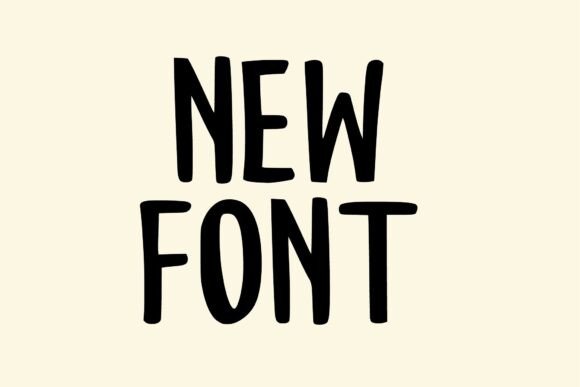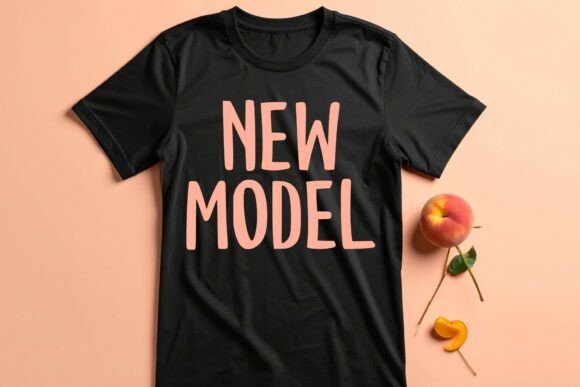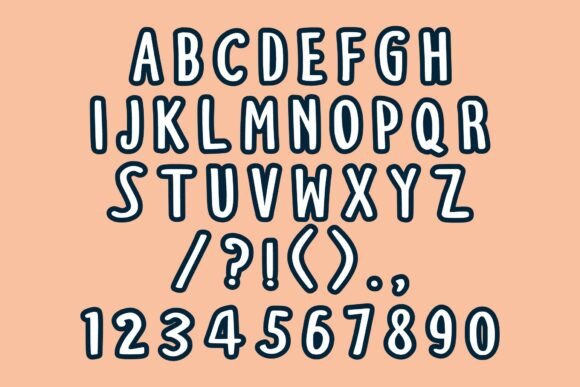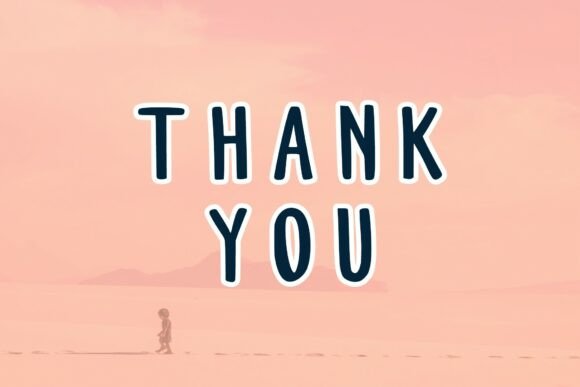
Hello Doodle Font: Add a Playful Touch to Your Designs
Are you looking for a font that can add a sweet and playful touch to your designs? Look no further than the Hello Doodle font! This charming handwritten font features bold, rounded letters and a fun doodle-inspired look that’s perfect for creating eye-catching designs. In this article, we’ll explore the features and benefits of the Hello Doodle font, and show you how to use it to take your designs to the next level.
What is Hello Doodle Font?
Hello Doodle is a display font that’s designed to bring a cheerful and friendly vibe to your designs. Its bold, rounded letters and fun doodle-inspired look make it perfect for creating attention-grabbing headlines, titles, and quotes. The font’s playful style is reminiscent of hand-drawn doodles, making it ideal for designs that require a personal and whimsical touch.
Key Features of Hello Doodle Font
- Handwritten style: Hello Doodle font features a charming handwritten style that’s perfect for creating unique and personalized designs.
- Bold and rounded letters: The font’s bold and rounded letters make it easy to read and add a playful touch to your designs.
- Doodle-inspired look: The font’s doodle-inspired look adds a fun and whimsical touch to your designs, making them stand out from the crowd.
- Multipurpose: Hello Doodle font is versatile and can be used for a wide range of design projects, from quotes and t-shirts to invitations and social media graphics.
Use Cases for Hello Doodle Font
Hello Doodle font is perfect for a variety of design projects, including:
- Quotes and posters: Add a playful touch to your quotes and posters with Hello Doodle font.
- T-shirts and mugs: Create eye-catching apparel and accessories with this fun and playful font.
- Stickers and children’s projects: Hello Doodle font is perfect for creating fun and colorful stickers and children’s projects.
- Classroom materials: Add a cheerful touch to your classroom materials, such as worksheets and presentations.
- Branding and invitations: Use Hello Doodle font to create unique and personalized branding and invitations.
- Social media graphics: Add a playful touch to your social media graphics and stand out from the crowd.
Benefits of Using Hello Doodle Font
Using Hello Doodle font in your designs offers a range of benefits, including:
- Unique and personalized designs: Hello Doodle font allows you to create unique and personalized designs that stand out from the crowd.
- Playful and cheerful vibe: The font’s playful and cheerful vibe adds a fun and engaging touch to your designs.
- Easy to read: The font’s bold and rounded letters make it easy to read, even at small sizes.
- Multipurpose: Hello Doodle font can be used for a wide range of design projects, making it a versatile addition to your font library.
Tips for Using Hello Doodle Font
Here are some tips for getting the most out of Hello Doodle font:
- Use it for headlines and titles: Hello Doodle font is perfect for creating attention-grabbing headlines and titles.
- Experiment with colors and textures: Add an extra layer of interest to your designs by experimenting with different colors and textures.
- Pair it with other fonts: Hello Doodle font pairs well with other fonts, so don’t be afraid to experiment with different combinations.
- Use it for kids’ projects: The font’s playful style makes it perfect for kids’ projects, such as stickers, coloring pages, and activity sheets.
Hello Doodle font is a sweet and playful display font that’s perfect for adding a cheerful and friendly touch to your designs. Its bold, rounded letters and fun doodle-inspired look make it ideal for creating eye-catching designs for a wide range of projects. Whether you’re a designer, crafter, or DIY enthusiast, Hello Doodle font is a versatile and fun addition to your font library.